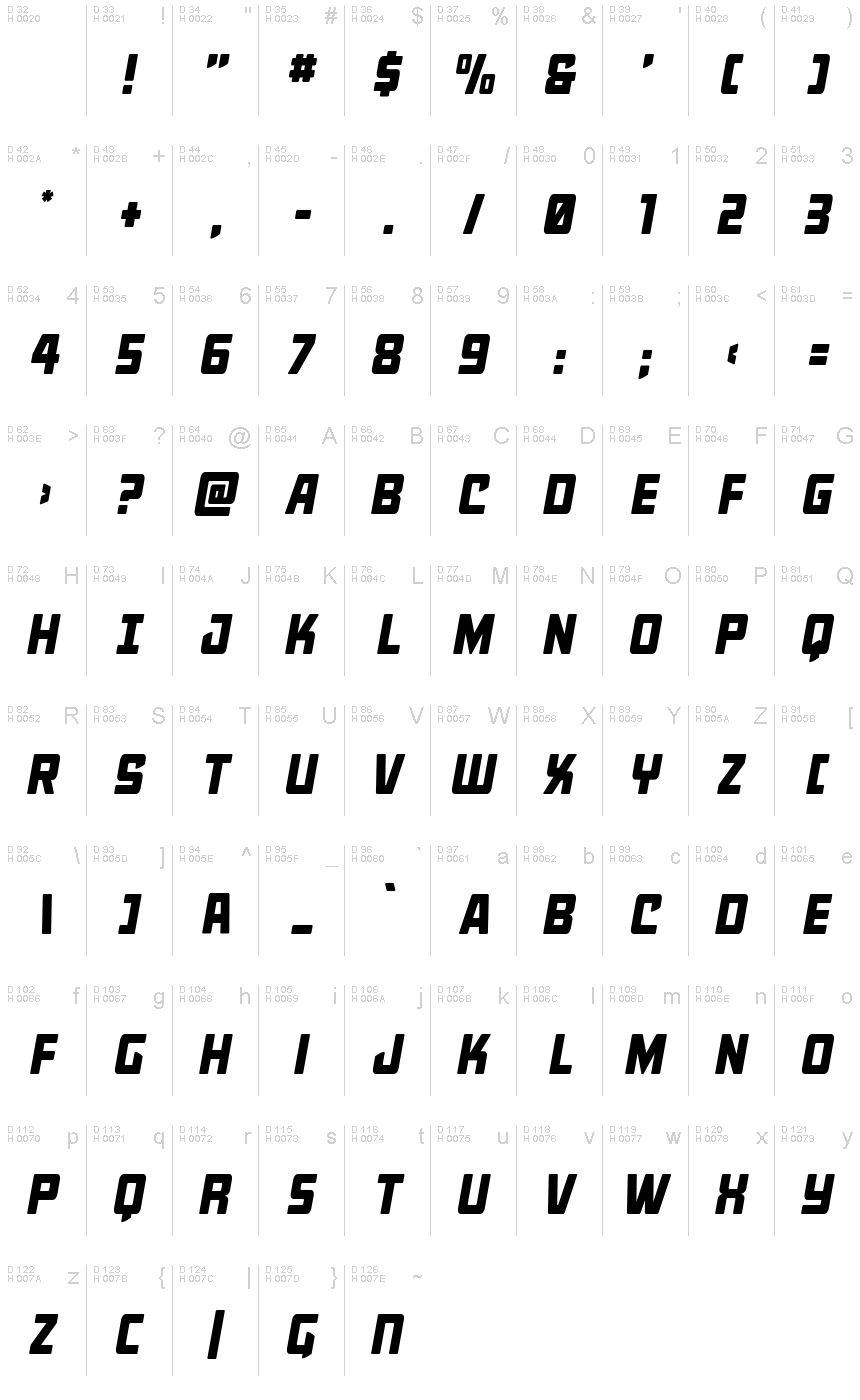
Quicky Nick Semi-Straight
Quicky Nick Semi-Straight, a captivating display font designed by Iconian Fonts, exudes a bold, futuristic charm. Its condensed, techno-inspired style commands attention, with sharp angles and a sleek, semi-straight silhouette that evoke a sense of speed and modernity. This font's strong visual presence makes it a compelling choice for projects seeking a distinctive, attention-grabbing aesthetic.
Quicky Nick Semi-Straight's versatility allows it to shine in a variety of design contexts, from dynamic branding and packaging to captivating event posters and digital interfaces. Its condensed nature lends itself well to space-conscious layouts, while its bold, techno-influenced personality makes it an ideal choice for projects aiming to convey a sense of innovation and cutting-edge style.